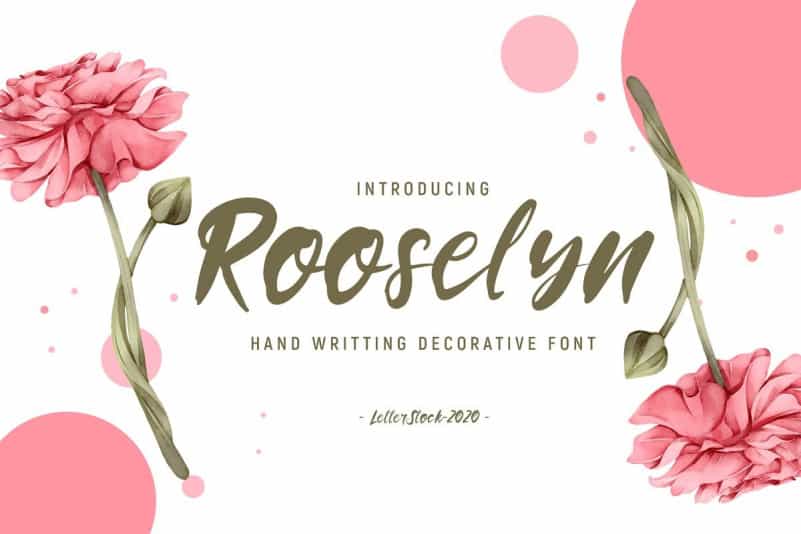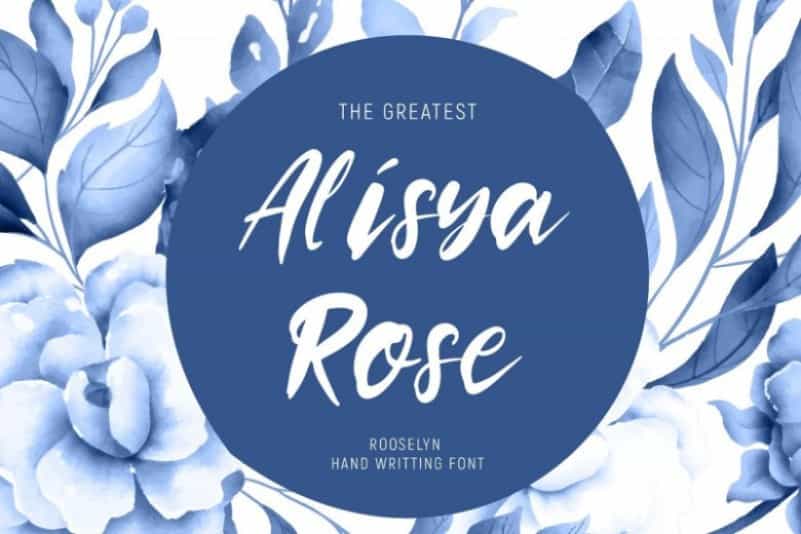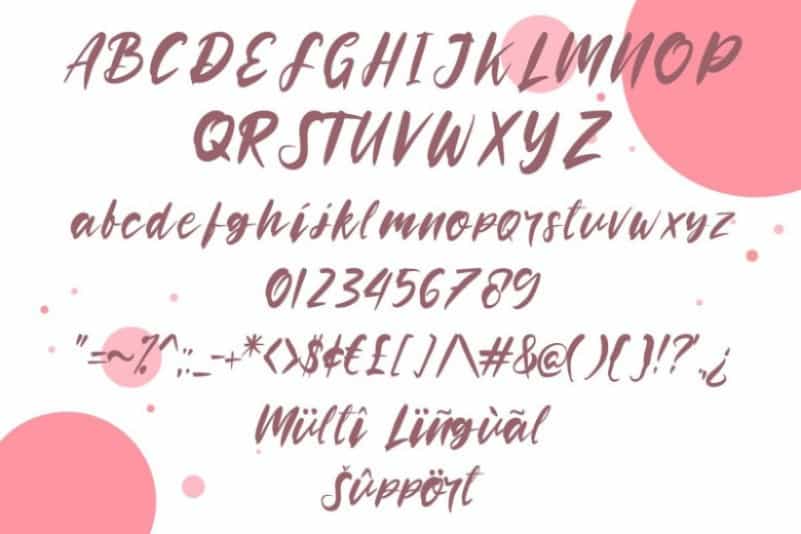
Rooselyn Script Font
Discover Rooselyn Script Font, part of the  Brush  Handwritten Decorative collection—a versatile and unique font perfect for adding a personal touch to your projects. Download it for free and enjoy crafting designs with style, from invitations to social media posts. This font is available exclusively for personal use, giving you the freedom to create without limits. Unlock your creativity with Rooselyn Script Font today!
Rooselyn – Hand written font I was inspired by a perfect lettering on some wedding invitation and combined it to make it more decorative.